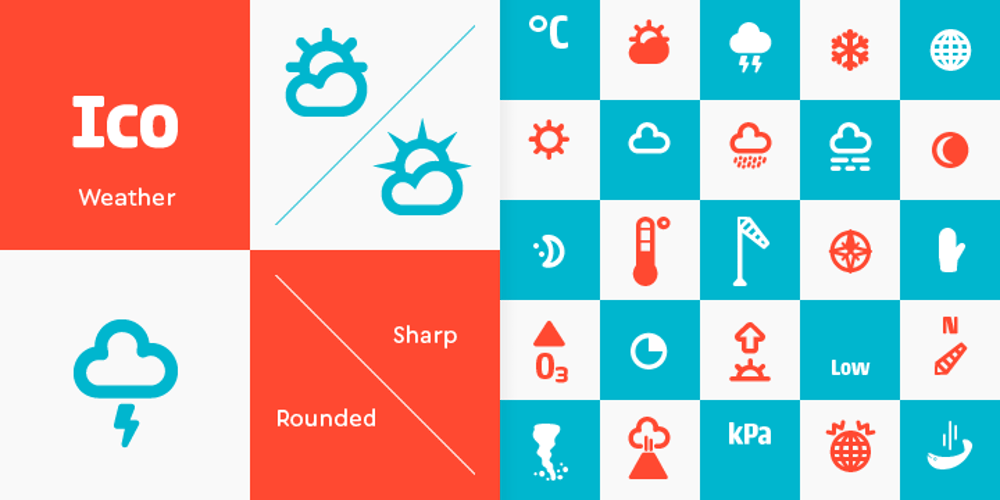
Ico Weather Font Family was designed by Ondrej Jób and published by Setup Type. Ico Weather contains 2 styles and family package options. Ico Weather is a set of 115 symbols depicting weather, temperature, weather forecast and astronomy. To name a few, there are sun, clouds, rain, snow, thermometers, wind socks, tornados, volcanoes, weather warnings as well as symbol for raining fish. The style of Ico is inspired by the look of symbols used on the classic monochrome LCD displays. The symbols are monolinear with rounded corners, composed of a smallest possible number of elements. In addition, the rounded style is accompanied by a second style with sharp corners and more detailed drawing. All symbols of Ico share the same width, making the font compatible with the LCD typeface ION. Together, they are the perfect sollution for LCD style typography. Ico Weather is a part of a larger set. Have a look at the other available Ico fonts and don’t forget to check back soon for even more additions.